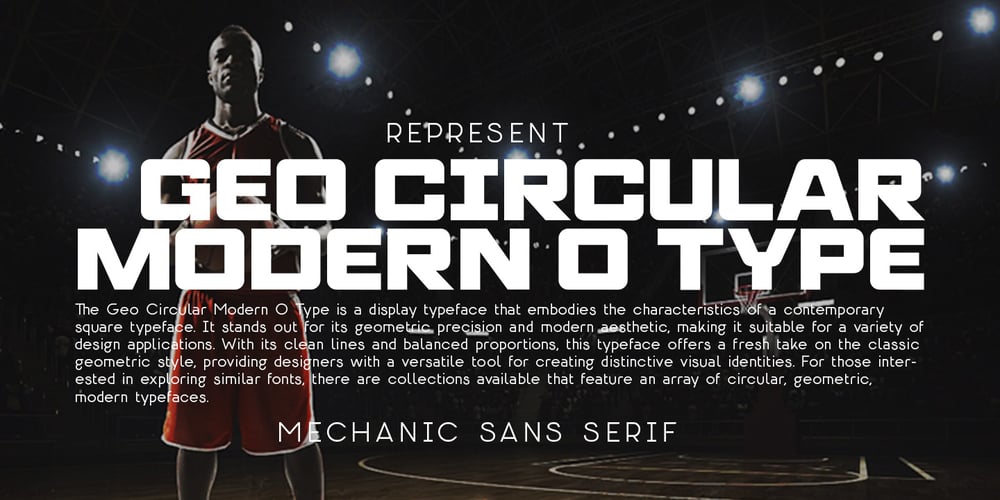
Geo Circular Modern O Type Font Family was designed by Galang Persada and published by O Type Foundry. Geo Circular Modern O Type contains 1 styles and family package options. REPRESENTGEO CIRCULAR MODERN O TYPEThe Geo Circular Modern O Type is a display typeface that embodies the characteristics of a contemporary square typeface. It stands out for its geometric precision and modern aesthetic, making it suitable for a variety of design applications. With its clean lines and balanced proportions, this typeface offers a fresh take on the classic geometric style, providing designers with a versatile tool for creating distinctive visual identities. For those inter- ested in exploring similar fonts, there are collections available that feature an array of circular, geometric, modern typefaces.MECHANIC SANS SERIF